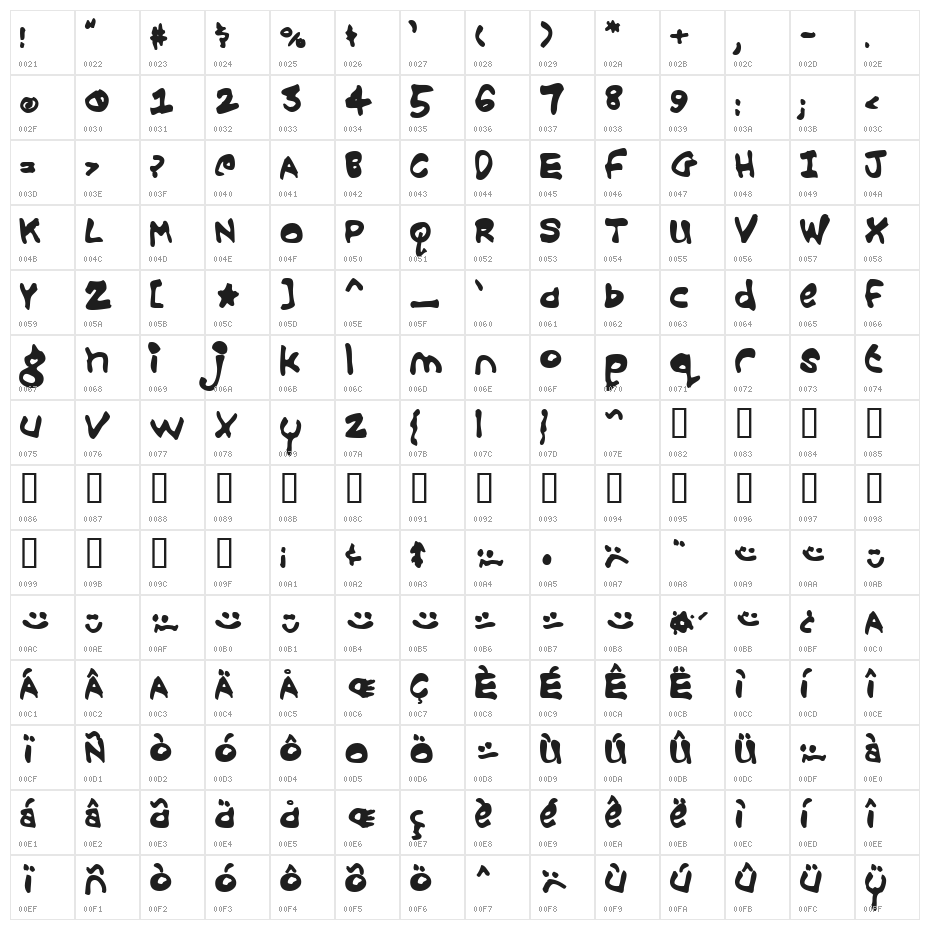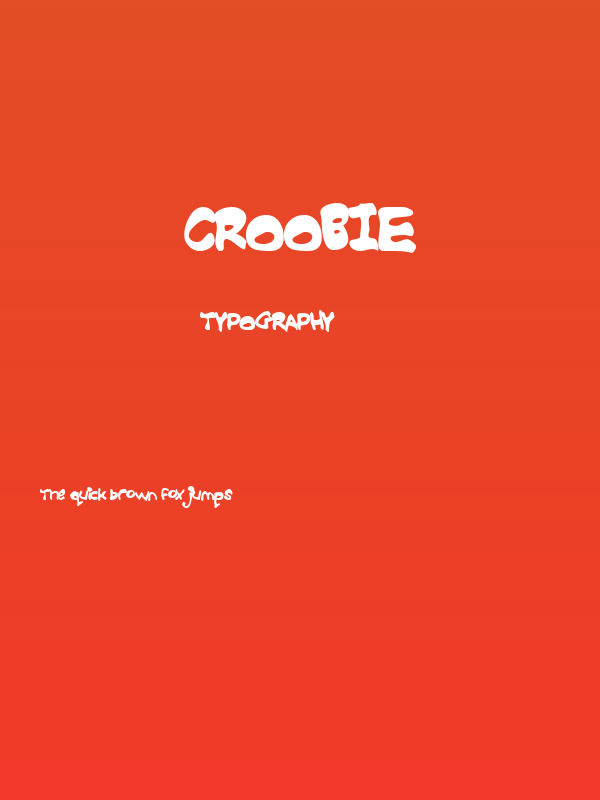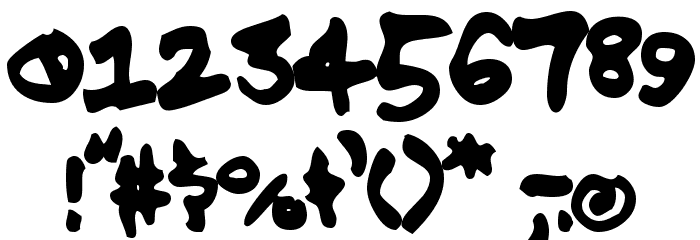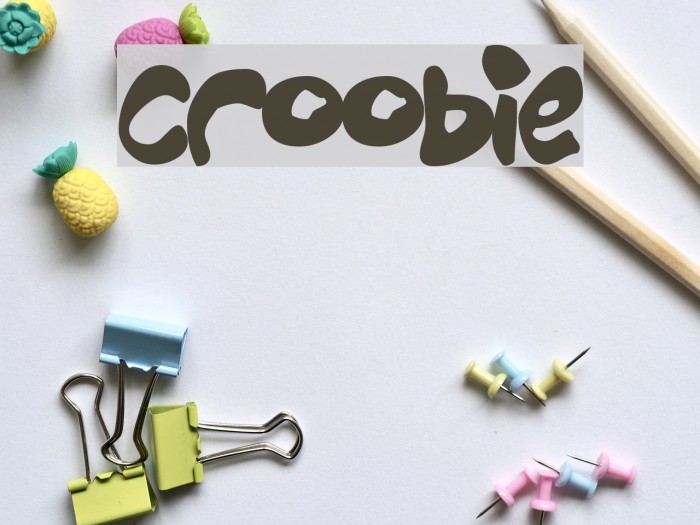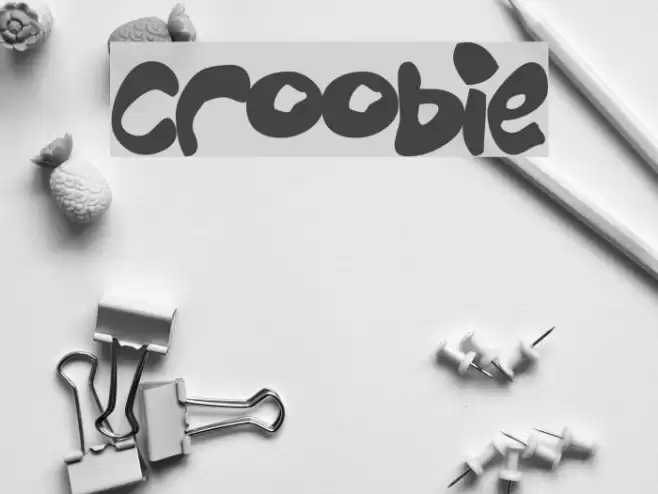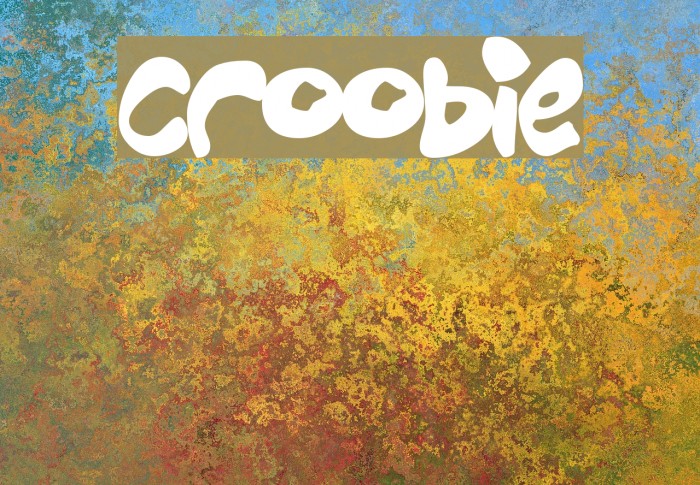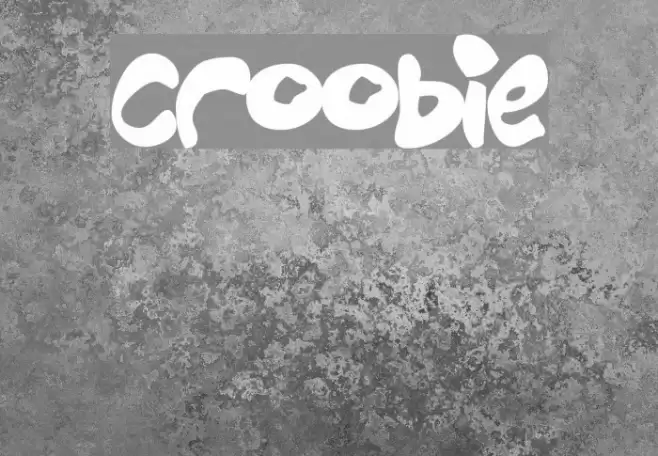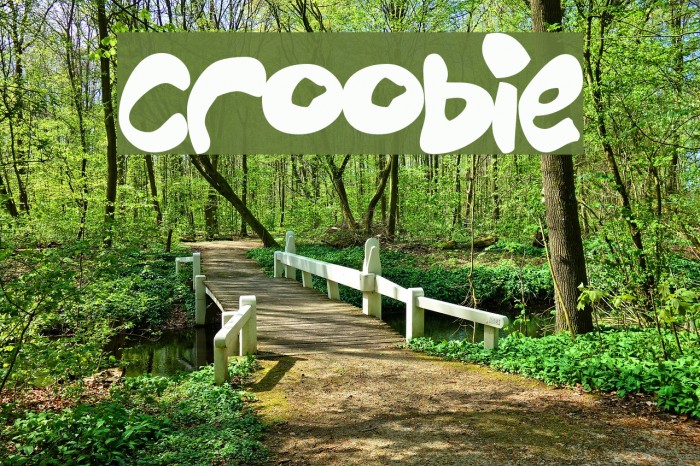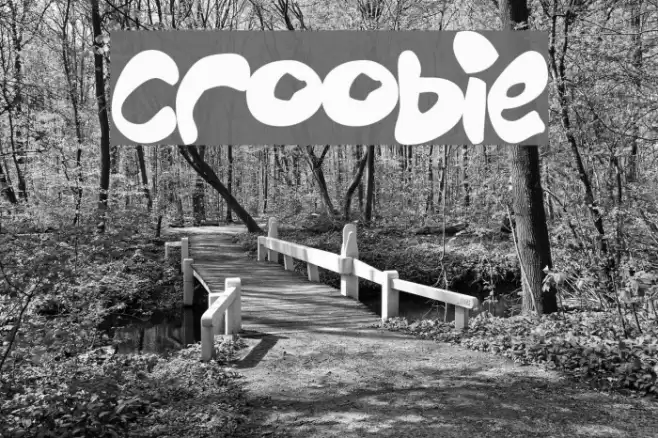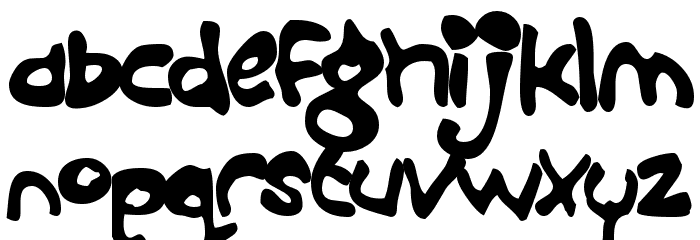
Croobie Font
Croobie Description
This font exhibits a playful and bold style with a distinctly hand-drawn appearance. The characters are irregular and feature exaggerated curves and strokes, giving it a whimsical and artistic feel. The uppercase and lowercase letters maintain a consistent thickness, contributing to its bold presence. The numbers and special characters follow the same playful design, making it suitable for creative and informal projects. The overall look is dynamic and lively, perfect for capturing attention.
| Overall Style | Playful, Artistic |
| Proposed Projects | Ideal for children's books, playful branding, posters, and creative invitations. |